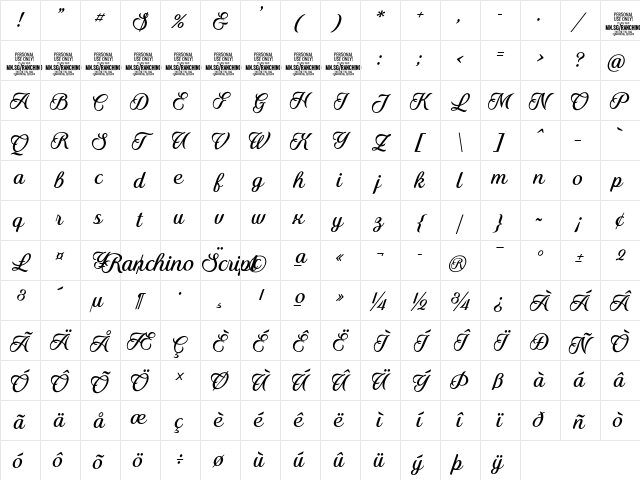
Ranchino Script PERSONAL USE Regular Free Font
Ranchino Script PERSONAL USE Regular
Design Context for Ranchino Script PERSONAL USE
Ranchino Script PERSONAL USE flows with the natural rhythm of handwritten lettering, making it ideal for designs that call for warmth and personal expression.
Font Pairing: Combine Ranchino Script PERSONAL USE with a simple geometric sans for maximum contrast - the tension between flowing curves and clean structure is a classic typographic pairing.
Pro Tip: Use Ranchino Script PERSONAL USE for short runs of text - names, titles, or taglines. Extended body copy in script faces tires the eye quickly.